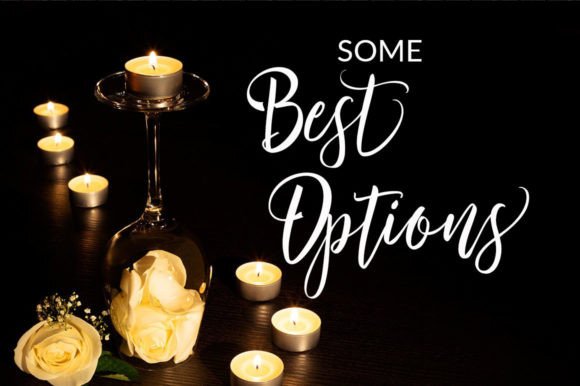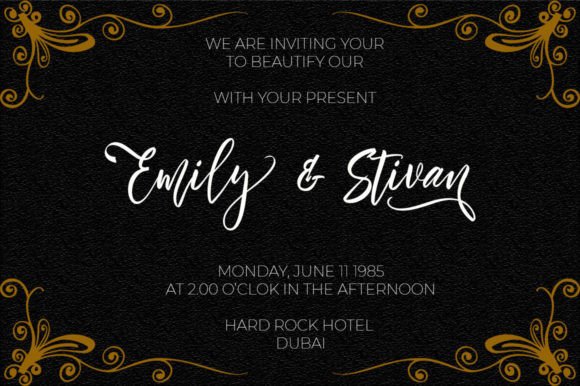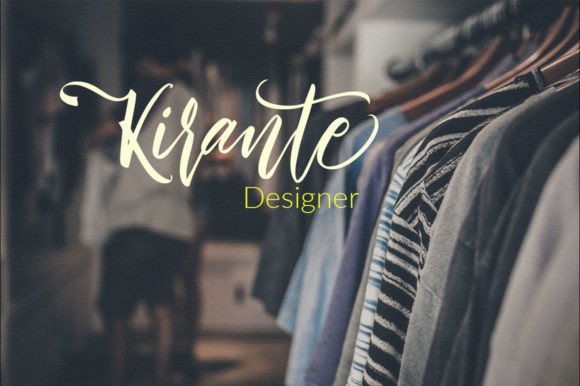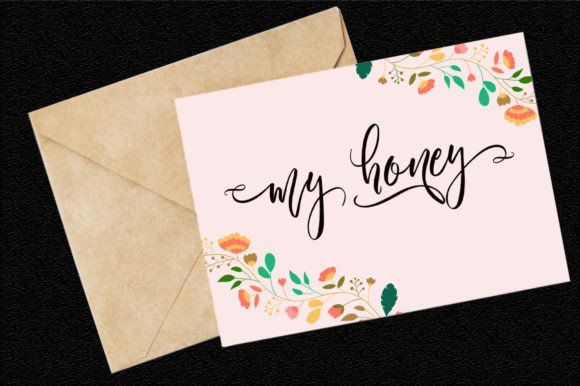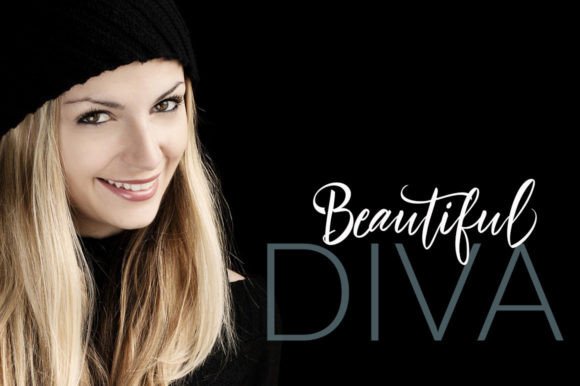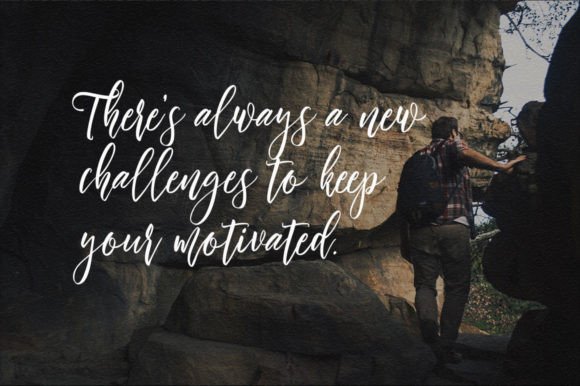
Introduction to Mutiara Font
Have you ever stared at a blank canvas, eager to bring your creative project to life, but struggling to find the perfect font to set the tone? For designers, the right font can make all the difference in conveying elegance, sophistication, and style. That’s where the Mutiara Font comes in – a popular and professional script font that’s sure to elevate your designs to the next level.
With its luxurious, elegant, and attractive aesthetic, the Mutiara Font is the perfect design resource for any creative project. Whether you’re working on a high-quality logo, website, or advertisement, this font is sure to add a touch of class and sophistication. Plus, its modern style and transparent background make it a versatile choice for a wide range of applications, from invitation cards to packaging products.
Key Features of Mutiara Font
- High-quality design resource ideal for creative projects requiring elegant and sophisticated typography.
- Features a transparent background, allowing for easy customization and composition with other design elements.
- Comes in a single weight, making it perfect for projects where a clean and minimalist aesthetic is desired.
- Designed with a high resolution of 300 DPI, ensuring crisp and clear text output in both digital and print media.
- Perfect for use in a variety of creative projects, including branding, advertising, and editorial design.
Honest Review: Mutiara Font
I recently stumbled upon the Mutiara Font and I must say it’s been a game-changer for my creative projects. This font is a high-quality design resource that I’ve been using extensively.
Here are some aspects that work well: ✨
- Unique aesthetic: The Mutiara Font has a distinctive look that sets it apart from other fonts. Its intricate details and curves make it perfect for designing elegant and sophisticated materials.
- Transparent background: The font’s transparent background allows for seamless integration with other design elements, giving me more creative freedom.
While the Mutiara Font is an excellent resource, I do have a few limitations to note: ⚠️
- Limited font sizes: The font is available in a limited range of sizes, which may not be suitable for all design projects.
- No bold or italic variants: I wish the font came with bold or italic variants to provide more styling options.
Overall, I’m impressed with the Mutiara Font and would highly recommend it to designers looking for a high-quality, free font for their creative projects.
Introduction to Mutiara Font
Mutiara Font is a high-quality design resource perfect for any creative project. With its elegant and sophisticated style, this font is ideal for use in various applications, including graphic design, digital art, and even web design.
Tips for Getting the Most Out of Mutiara Font
For the best results, use Mutiara Font with a transparent background to achieve a seamless and professional look. You can also experiment with different font sizes and styles to add visual interest to your design.
Mutiara Font is perfect for use in various applications, including:
- Digital art and graphics
Alternatives to Mutiara Font
Ostrich Sans is a modern sans-serif font that offers a high-quality design resource for creative projects. It features a transparent background and clean lines, making it suitable for various applications, including digital and print media. Ostrich Sans is a great alternative to Mutiara Font when you need a more minimalist and versatile font.
Comparison to Mutiara Font: While both fonts are modern and elegant, Ostrich Sans has a more subtle and understated look, whereas Mutiara Font is bolder and more ornate.